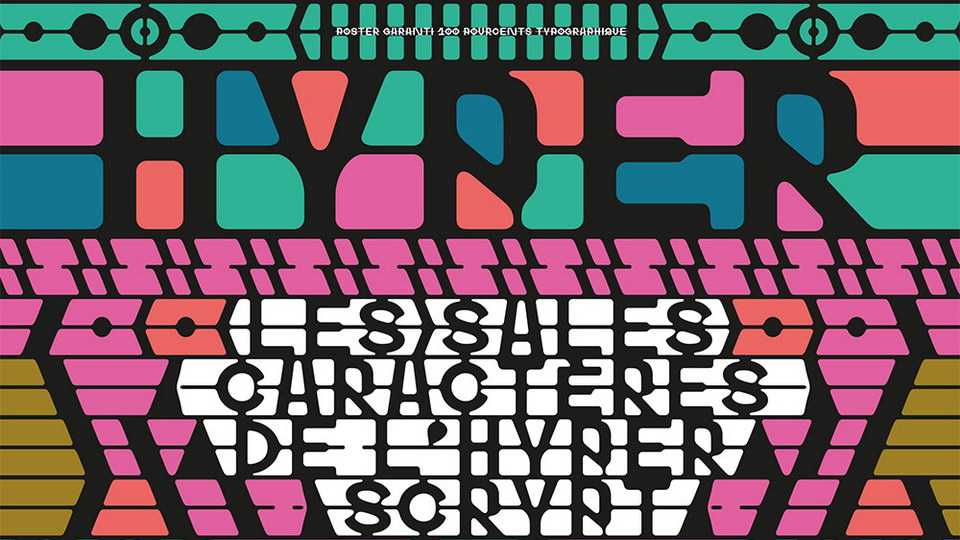
Download Hyper Scrypt font, a modern stencil typeface inspired by the stained glass technique used in the Metz cathedral. It borrows the stained glass method, drawing holes for the light with black lead.